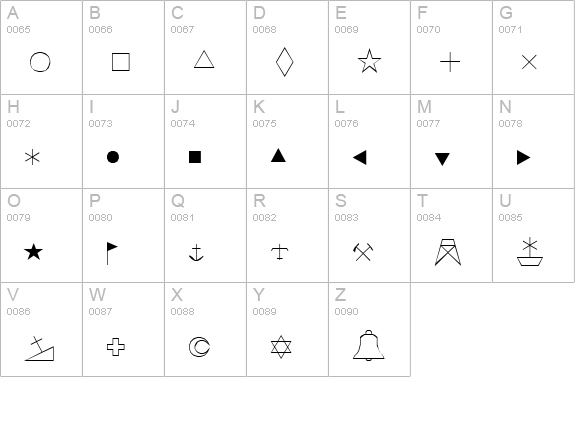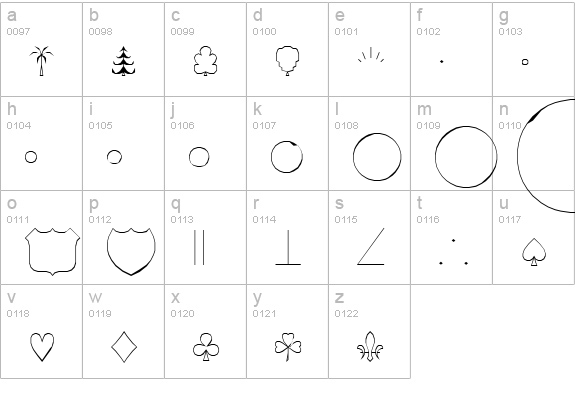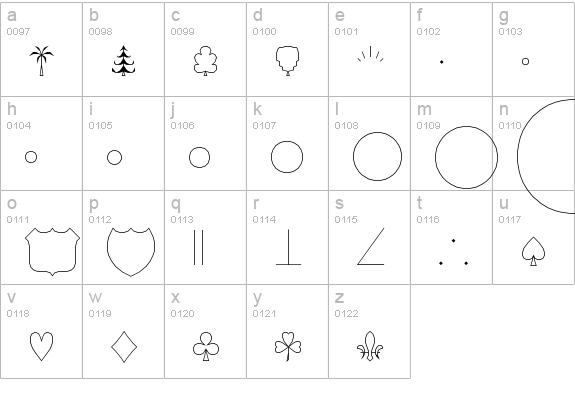
Symap Font Details
Introducing Symap Font - a sophisticated typeface that effortlessly combines elegance with modernity. This versatile font is perfect for a wide range of design projects, from branding to editorial design and everything in between. With its clean lines and stylish curves, Symap Font exudes a sense of refinement and professionalism. What sets Symap Font apart is not only its timeless design but also the fact that it is completely free to download. Yes, you read that right - this stunning font is freely available for download at FontsMarket.com. So whether you're a seasoned designer looking to add a new font to your collection or a newcomer eager to experiment with typography, Symap Font is the perfect choice. Download Symap Font now and elevate your projects with its sophisticated charm and effortless style. Let your creativity shine with this beautiful typeface that is sure to make a lasting impression.